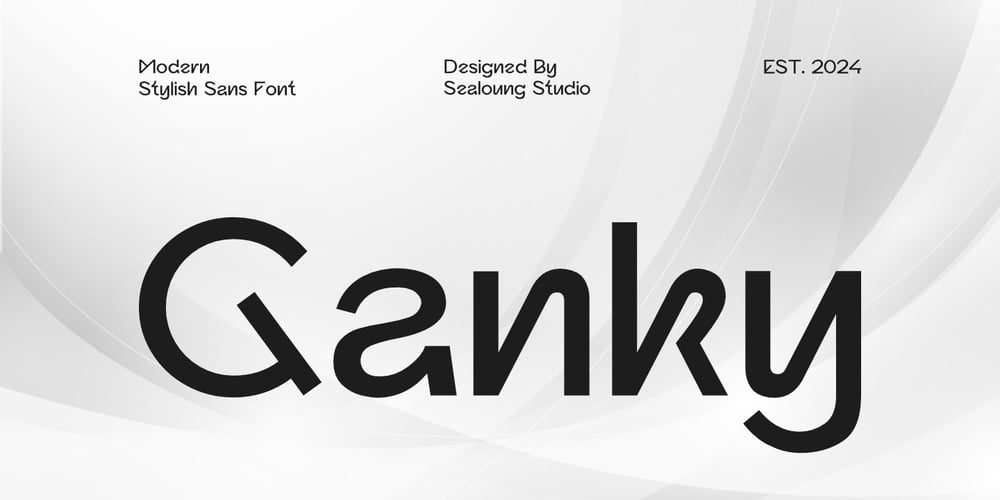
Ganky
Ganky font
Ganky Font Family was designed by Saiful Anwar and published by Sealoung. Ganky contains 1 styles and family package options. Ganky is a stylish modern sans-serif font inspired by modern grotesque styles, featuring geometric details and rooted in industrial design principles.Ganky is the perfect choice for any creative project, adding a chic and sophisticated touch to logos, advertisements, watermarks on photography, stationery, branding projects, displays, magazines, invitations, corporate branding, product designs, labels, business projects, and much more.What You’ll Get: Standard Glyphs Numerals and Punctuation Compatibility with PC & Mac Easy Installation Accessible in Adobe Illustrator, Adobe Photoshop, Adobe InDesign, and even Microsoft Word Multilingual Characters for: Afrikaans, Albanian, Asu, Basque, Bemba, Bena, Breton, Chiga, Cornish, Dutch, English, Estonian, Filipino, Finnish, Friulian, Galician, Gusii, Indonesian, Irish, Italian, Kabuverdianu, Kalenjin, Kinyarwanda, Luo, Luxembourgish, Luyia, Machame, Makhuwa-Meetto, Makonde, Malagasy, Manx, Morisyen, North Ndebele, Nyankole, Oromo, Portuguese, Quechua, Romansh, Rombo, Rundi, Rwa, Samburu, Sango, Sangu, Scottish Gaelic, Sena, Shambala, Shona, Soga, Somali, Spanish, Swahili, Swedish, Swiss German Thank you for your purchase!We hope you enjoy using Ganky!